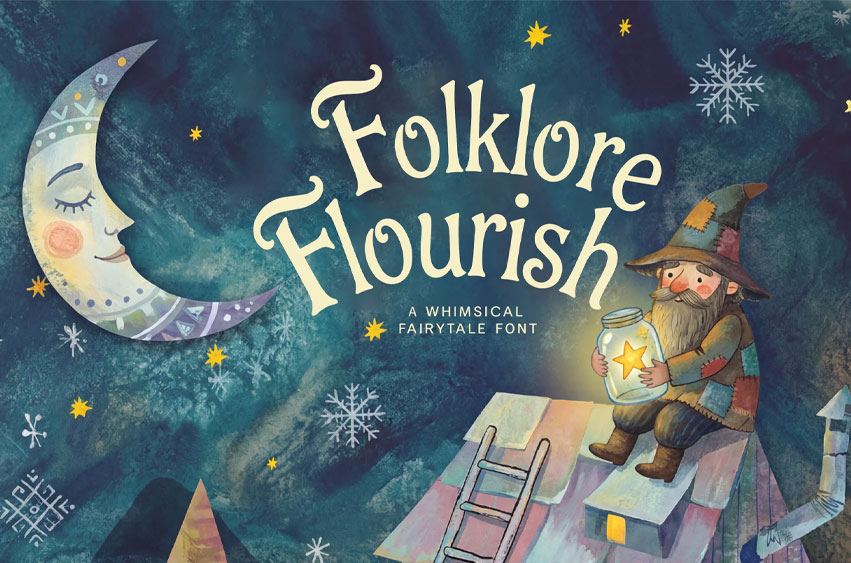
Folklore Flourish Font
Folklore Flourish Font is a whimsical fairytale serif font.
Use it for storybook covers, children’s projects, logos, packaging, invitations, posters, nursery decor, and woodland/cottagecore designs.